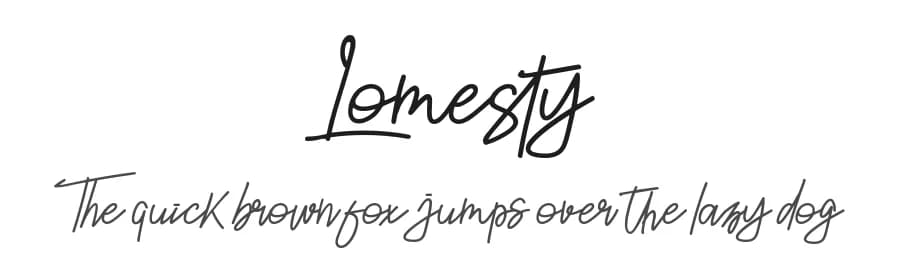
About Lomesty Font
| Designer | seeyouletter.std |
Lomesty Font is a script font that shines as a display or heading face. Pair it with a clean sans-serif or serif font for body text β the contrast creates a clear hierarchy while the two styles stay balanced and easy to read.
Lomesty Font